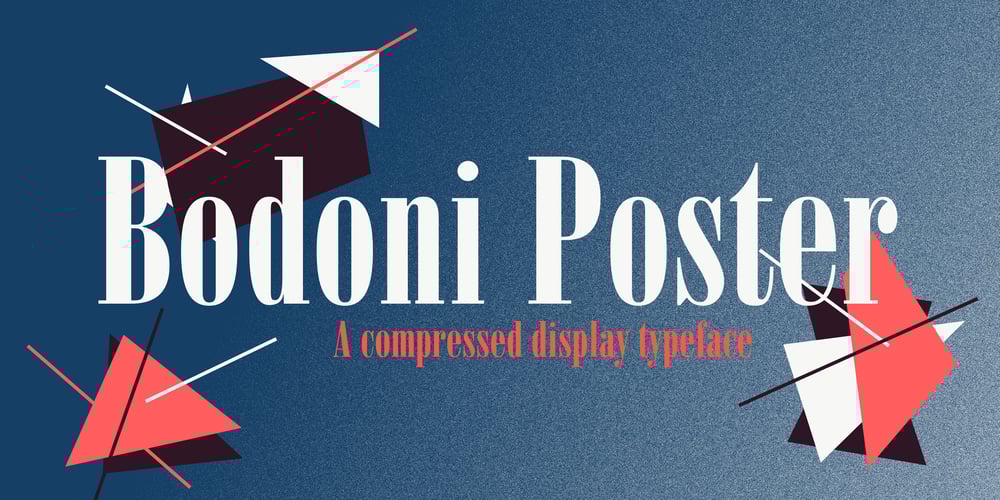
Bodoni Poster Font Family was designed by Giambattista Bodoni, Chauncey H. Griffith and published by Linotype. Bodoni Poster contains 4 styles and family package options. Giambattista Bodoni (1740–1813) was called the King of Printers and the Bodoni font owes its creation in 1767 to his masterful cutting techniques. Predecessors in a similar style were the typefaces of Pierre Simon Fournier (1712–1768) and the Didot family (1689–1836). The Bodoni font distinguishes itself through the strength of its characters and embodies the rational thinking of the Enlightenment. The new typefaces displaced the Old Face and Transitional styles and was the most popular typeface until the mid-19th century. Bodoni’s influence on typography was dominant until the end of the 19th century and even today inspires new creations. Working with this font requires care, as the strong emphasis of the vertical strokes and the marked contrast between the fine and thick lines lessens Bodoni’s legibility, and the font is therefore better in larger print with generous spacing. Chauncey H. Griffith’s Poster Bodoni displays characteristics of the advertisement fonts of the first half of the 20th century. The font was most often used for posters and signs, eventually including neon signs.